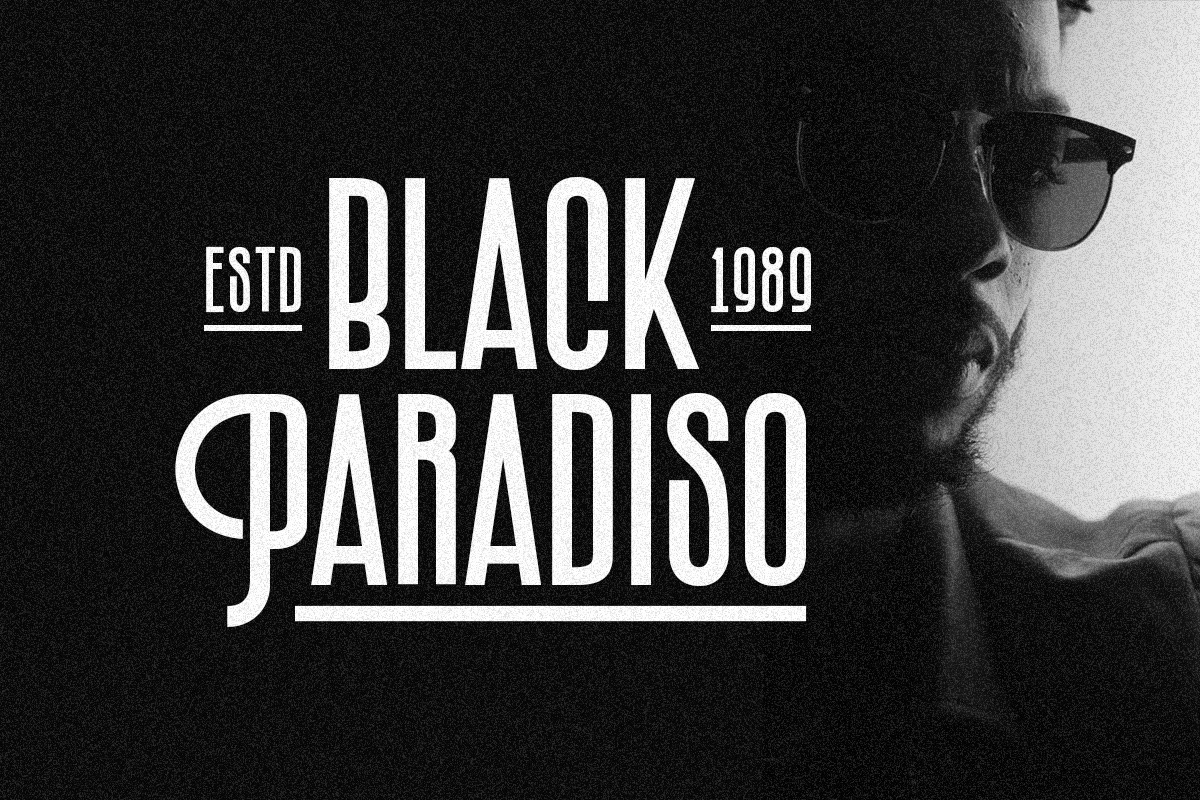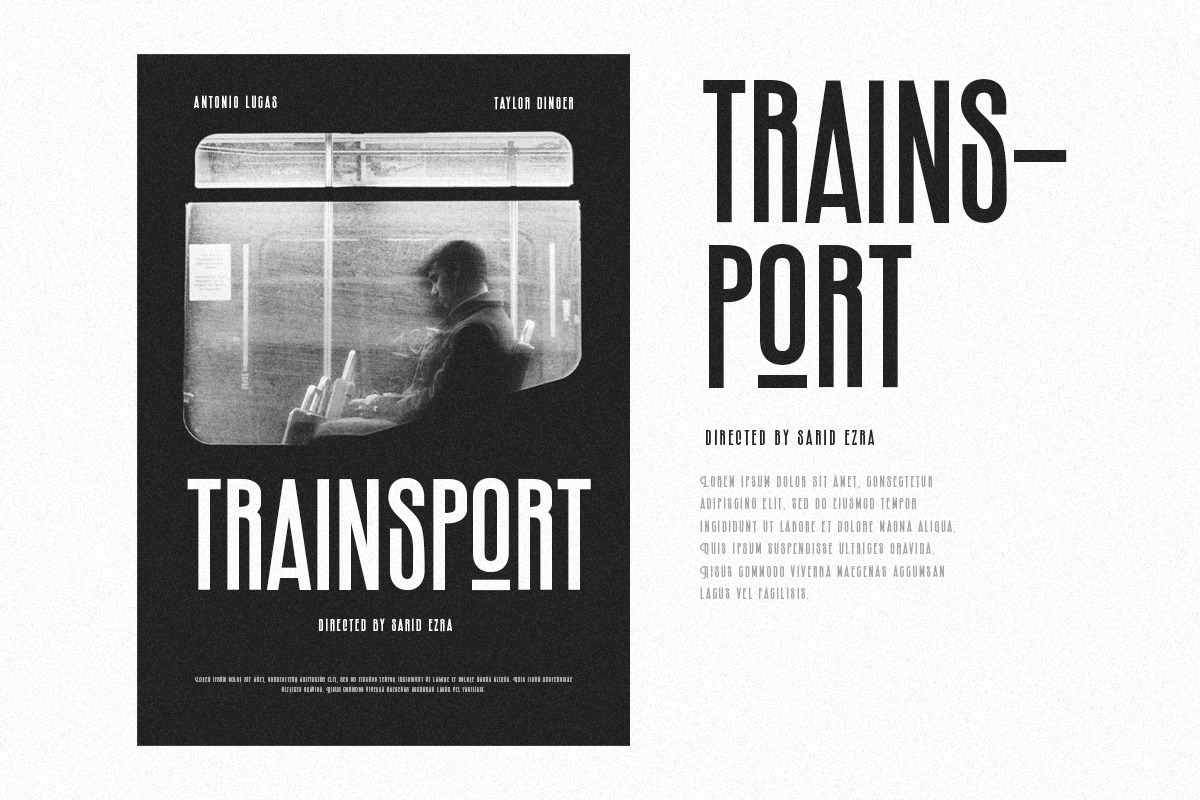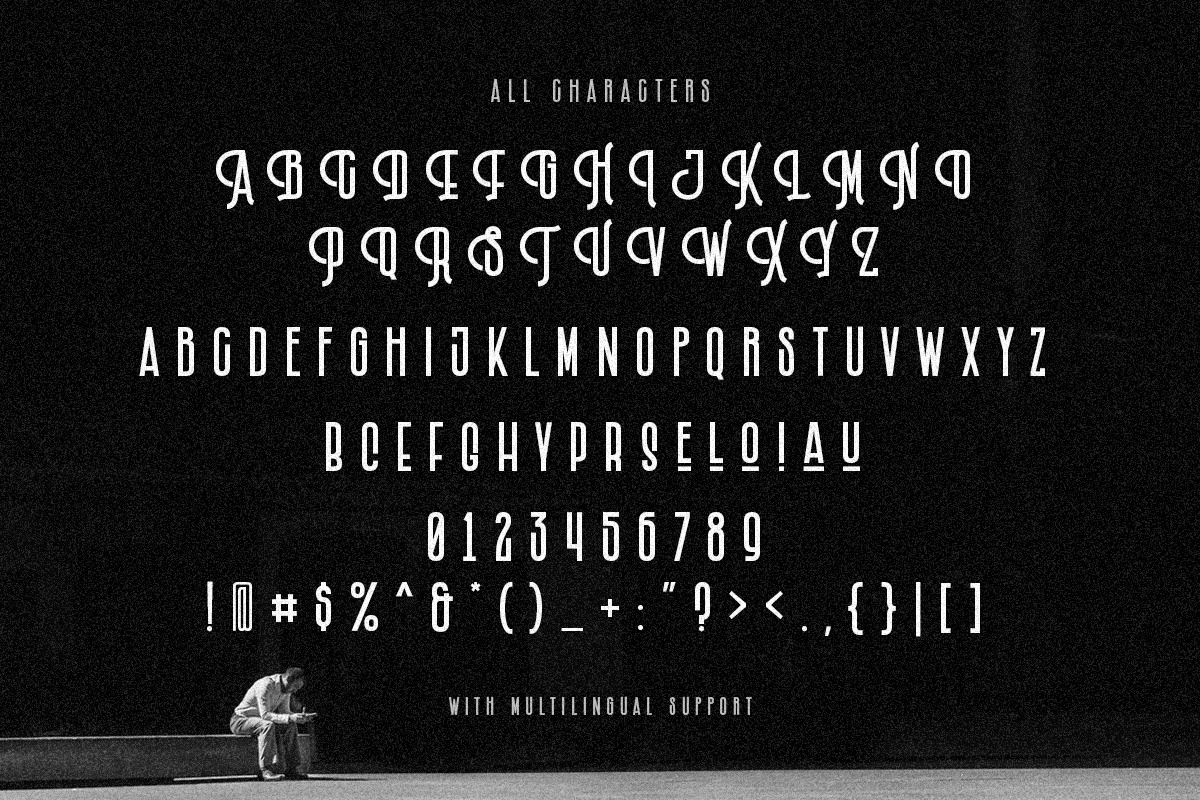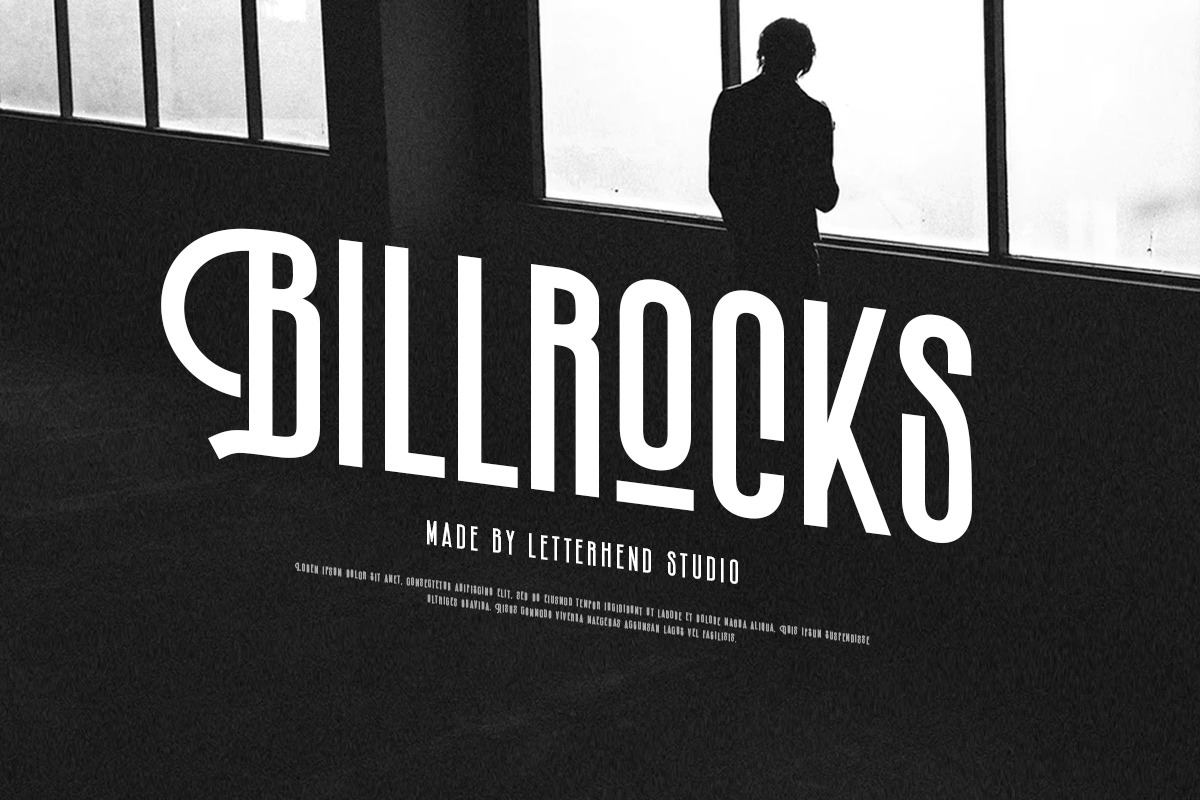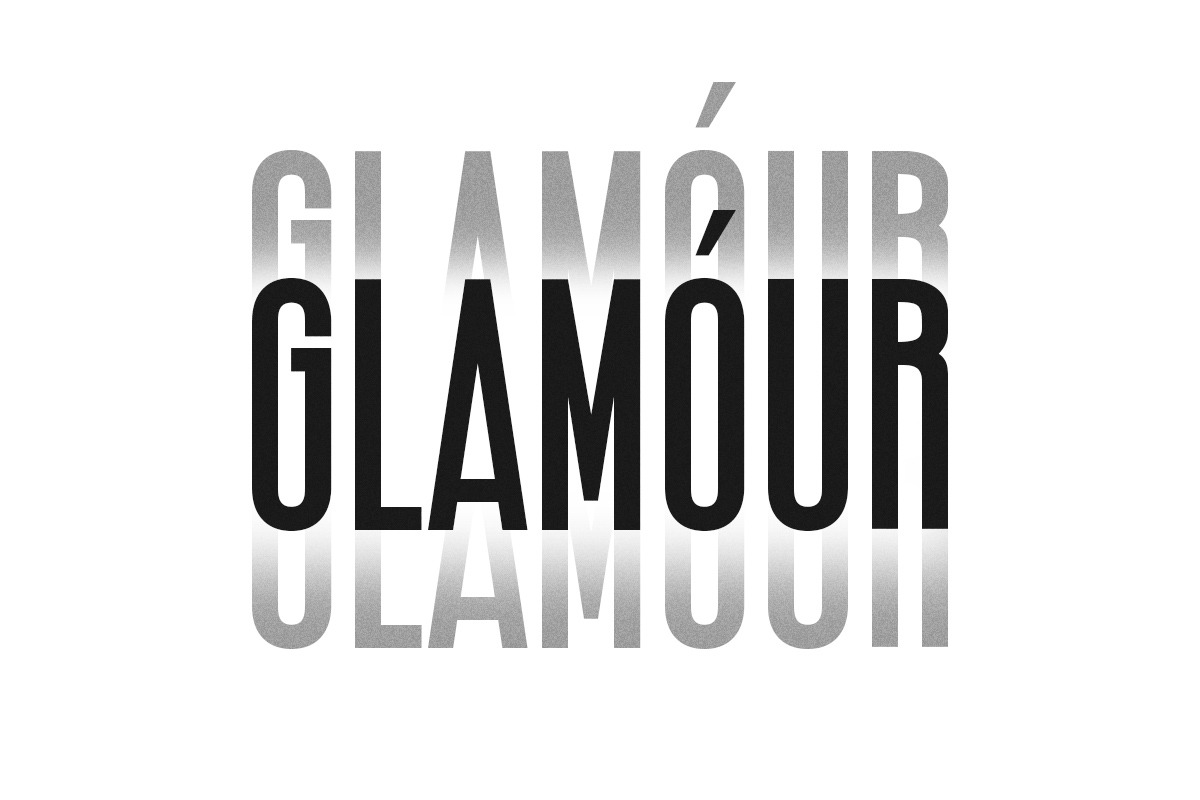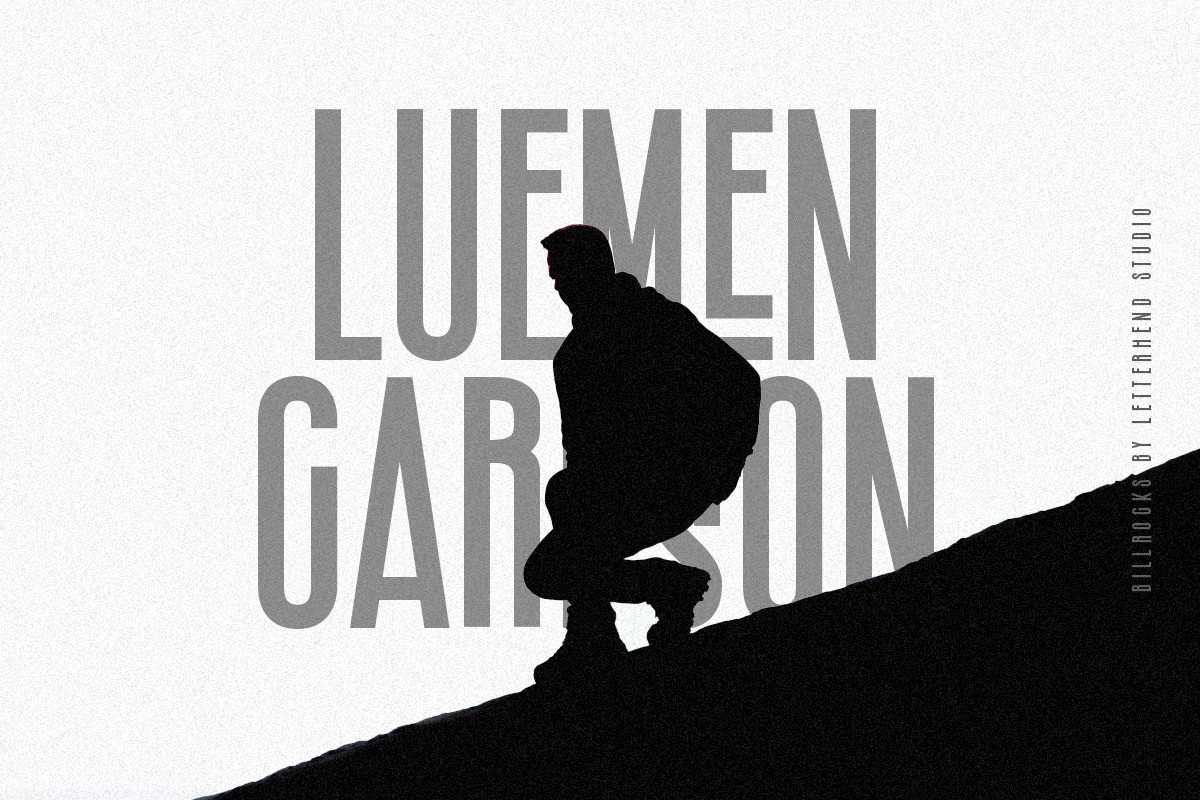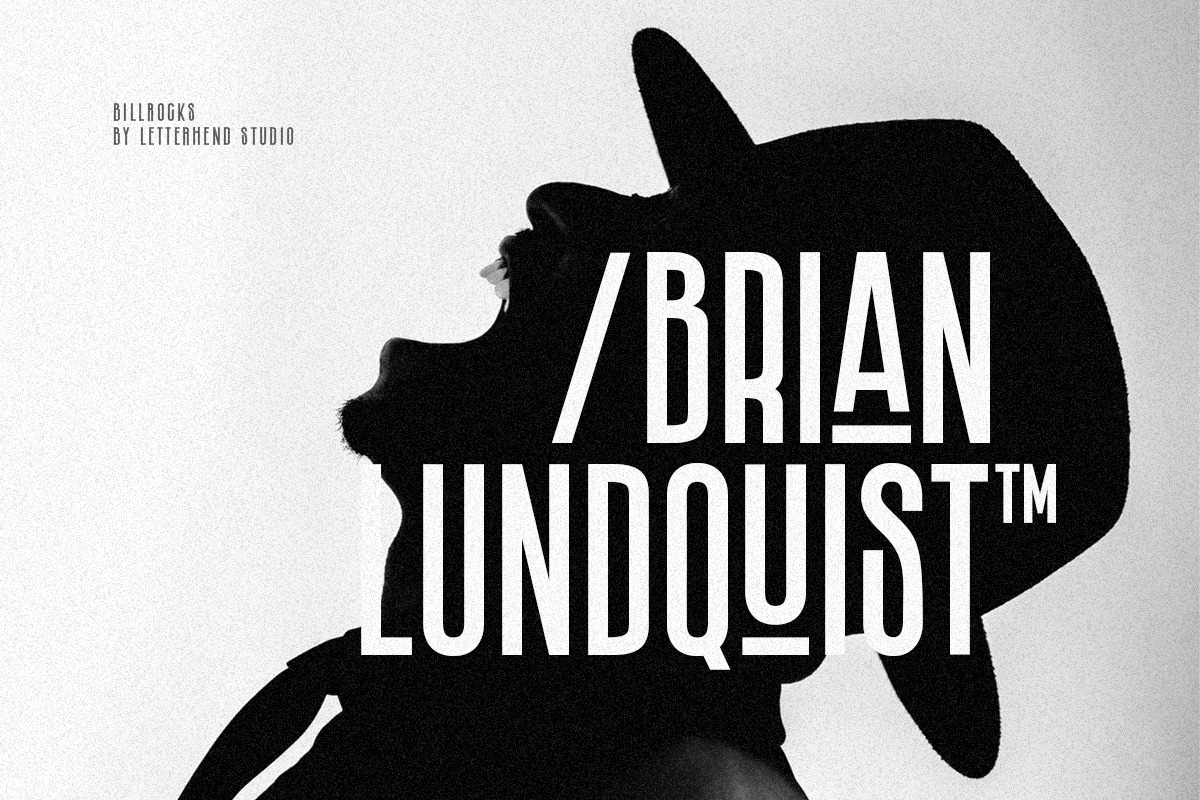
Billrocks - Sans serif Display Font
Introducing, Billrocks - A sans serif display typeface. The condensed style make this font looks great and standout for tittle, headline, logo, etc. Perfectly to be applied to the other various formal forms such as invitations, labels, logos, magazines, books, greeting / wedding cards, packaging, fashion, make up, stationery, novels, labels or any type of advertising purpose.
- alternates & ligatures